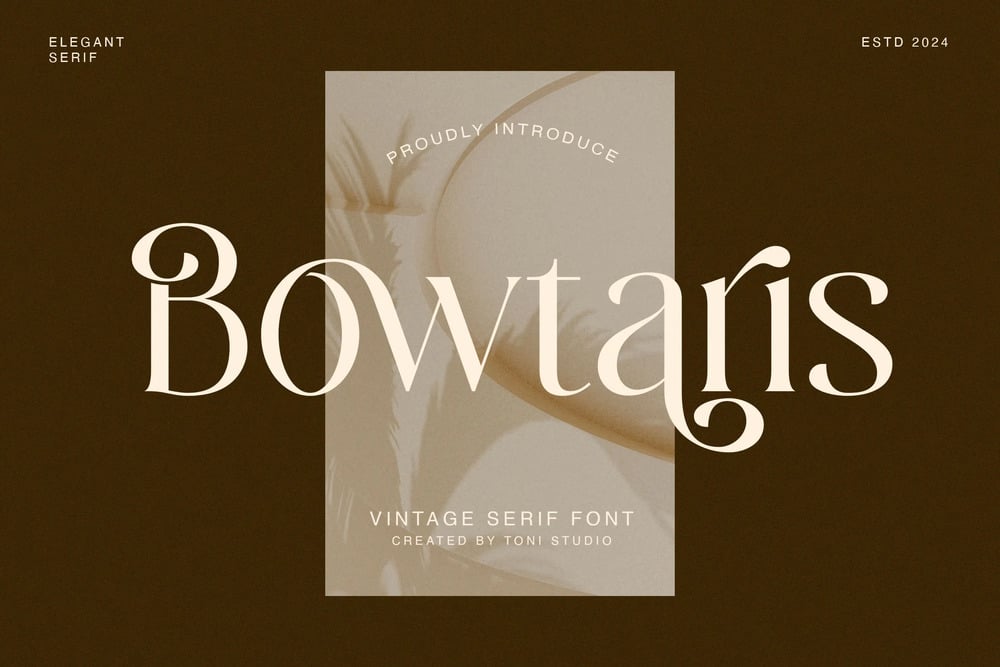
Bowtaris Font
Bowtaris is an aesthetic vintage serif font with a sparkle of Elegance. A classic design that brings timeless charm, reminiscent of traditional typefaces from the past. Each letter in this font carries a sense of nostalgia and authenticity, evoking the charm of semi-vintage printing techniques.